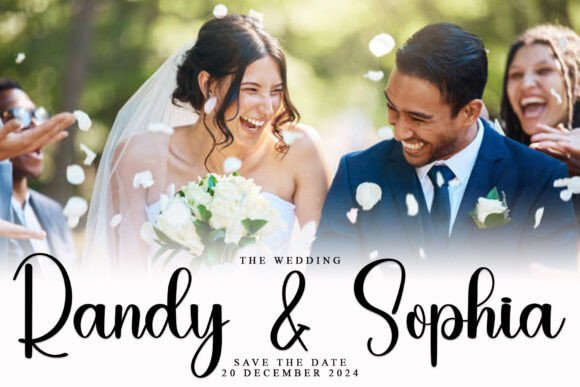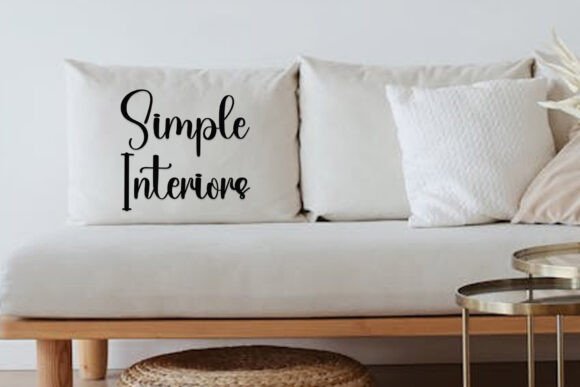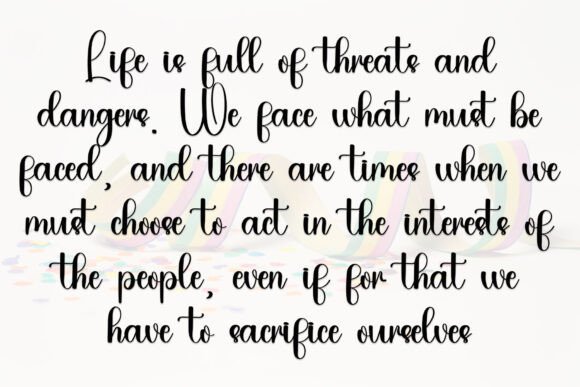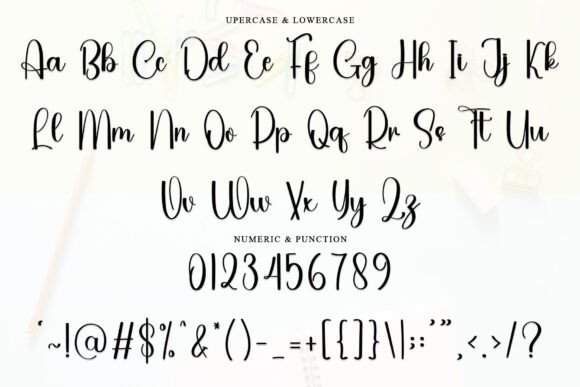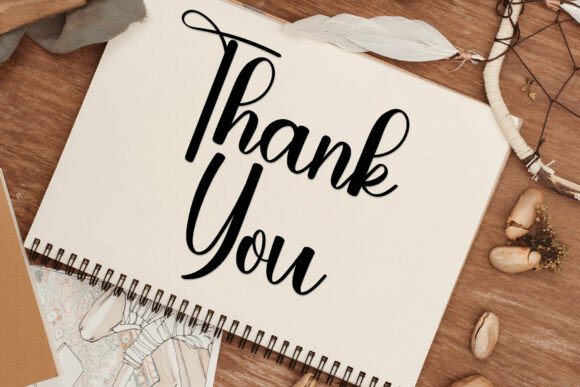
Introducing Grandma Font: Elevate Your Designs with Timeless Elegance
Are you searching for a font that exudes style, beauty, and elegance? Look no further than Grandma Font, a stunning typeface inspired by classic calligraphy. With its contemporary atmosphere and impeccable form, this font is perfect for designers and crafters seeking to add a touch of sophistication to their projects.
The Inspiration Behind Grandma Font
Grandma Font draws inspiration from timeless classic calligraphy, carefully crafted to bring a sense of balance and variation to your designs. The result is a font that is both beautiful and elegant, perfect for a wide range of applications, from wedding invitations and branding materials to digital publications and craft projects.
Key Features of Grandma Font
- PUA Encoded: Grandma Font is PUA (Private Use Area) encoded, making it easy to access all the amazing glyphs and ligatures. This means you can effortlessly incorporate the font’s beautiful swashes, flourishes, and other special characters into your designs.
- Contemporary Atmosphere: Despite being inspired by classic calligraphy, Grandma Font boasts a contemporary atmosphere that will make your designs stand out. Its unique blend of traditional and modern elements creates a truly distinctive look.
- Impeccable Form: The font’s impeccable form ensures that it remains legible and elegant, even at smaller sizes. This makes it perfect for body text, headlines, and titles.
- Balanced and Varied: Grandma Font is carefully crafted to provide a perfect balance of style and legibility. Its varied glyphs and ligatures ensure that your designs will never look repetitive or boring.
Why Choose Grandma Font?
With so many fonts available, why choose Grandma Font for your next project? Here are just a few compelling reasons:
- Uniqueness: Grandma Font’s distinctive style sets it apart from more generic fonts. By using this font, you’ll add a touch of personality to your designs that will help them stand out.
- Versatility: Grandma Font is incredibly versatile, suitable for a wide range of applications, from digital designs to print materials.
- Ease of Use: The font’s PUA encoding makes it easy to access and use the glyphs and ligatures, even for designers who are new to working with special characters.
Grandma Font is an excellent choice for designers and crafters seeking to elevate their projects with elegant, high-quality typography. Whether you’re creating:
- Wedding Invitations: Add a touch of romance and sophistication to your wedding invitations with Grandma Font.
- Branding Materials: Use Grandma Font to create stunning logos, business cards, and letterheads that reflect your brand’s personality.
- Digital Publications: Grandma Font is perfect for e-books, blogs, and websites seeking a stylish and elegant typography.
- Craft Projects: Add a personal touch to your craft projects, such as handmade cards, scrapbooking, and DIY papers.
In conclusion, Grandma Font is an exceptional typeface that offers a unique blend of style, elegance, and versatility. Its timeless classic calligraphy inspiration, combined with its contemporary atmosphere and impeccable form, make it an excellent choice for designers and crafters seeking to elevate their projects. With its PUA encoding and ease of use, Grandma Font is sure to become a favorite in your font collection.